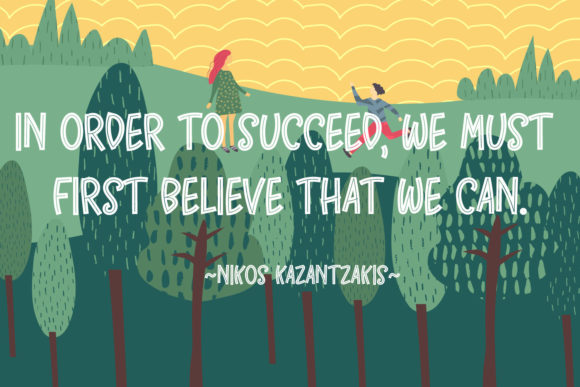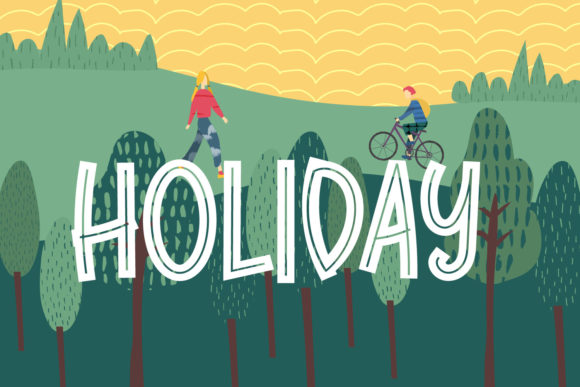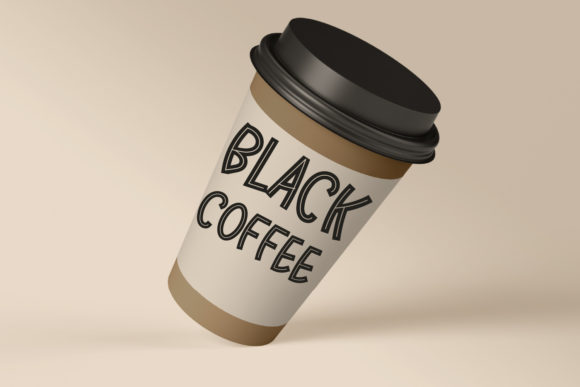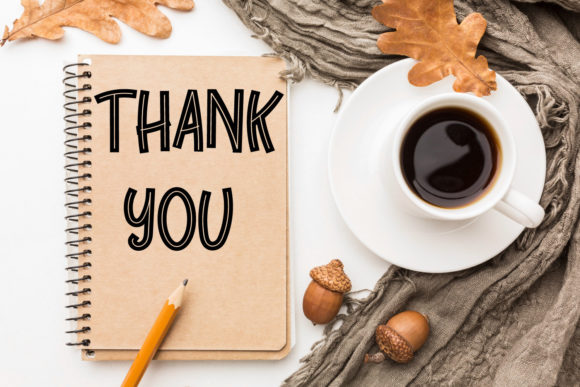
The Farmhouse Font: A Friendly Favorite for Creatives
I still remember the design project that led me to discover the Farmhouse font. I was working on a whimsical greeting card for a friend’s birthday, and I was struggling to find the perfect font. I wanted something playful, yet elegant; something that would convey warmth and friendliness. That’s when I stumbled upon Farmhouse, and it instantly became my go-to font for all sorts of creative projects.
So, what makes Farmhouse so special? Here are a few things I love about this charming font:
- ✨ Easy to read: Farmhouse is a display font that’s surprisingly legible, even at smaller sizes.
- ✅ Versatile: This font is perfect for a wide range of projects, from crafts and digital design to presentations and greeting cards.
- 😊 Friendliness: Farmhouse exudes warmth and approachability, making it ideal for projects that require a personal touch.
Of course, no font is perfect, and Farmhouse has a few minor quirks:
- 🤔 Limited formal use: Farmhouse is a highly informal font, so it may not be the best choice for projects that require a more professional tone.
- ⚠️ Glyph limitations: While Farmhouse has a range of OpenType features, it’s not as extensive as some other fonts on the market.
The Story Behind Farmhouse
Farmhouse was designed with the intention of creating a friendly, approachable font that would bring warmth to any project. The designer aimed to craft a font that felt like a warm hug – comforting, yet playful. And I think they succeeded!
| What makes Farmhouse so easy to read? | Farmhouse has a simple, rounded design that makes it highly legible, even at smaller sizes. |
| Is Farmhouse suitable for professional projects? | While Farmhouse is a beautiful font, it’s best suited for informal projects. For professional projects, you may want to consider a more formal font. |
| Does Farmhouse support OpenType features? | Yes, Farmhouse supports some OpenType features, including Stylistic Alternates and Glyphs. |